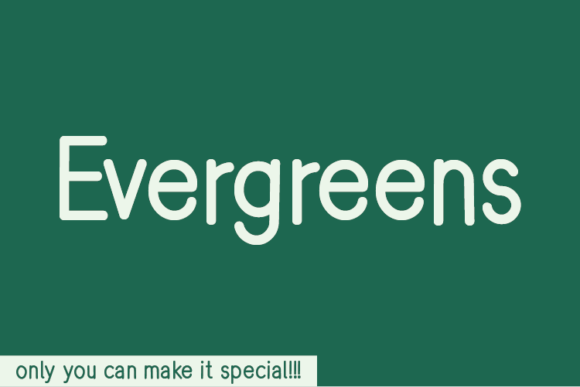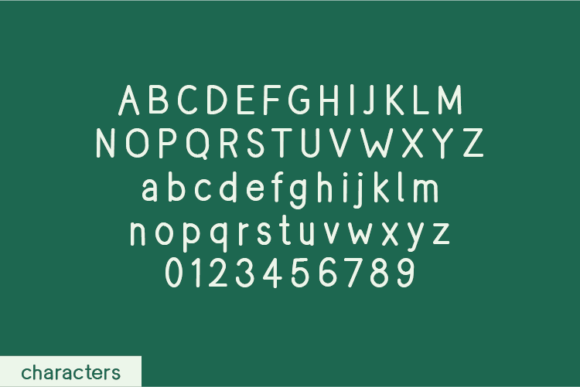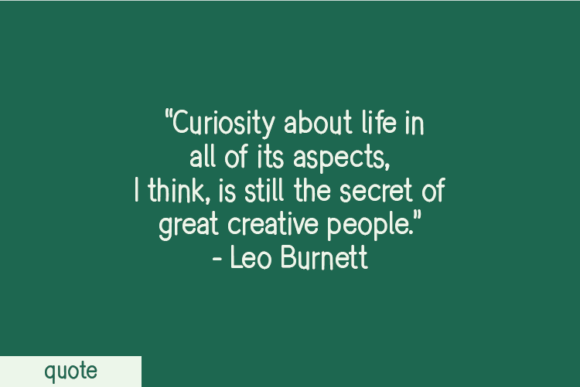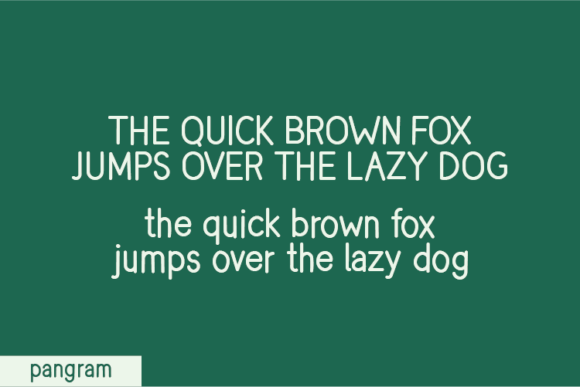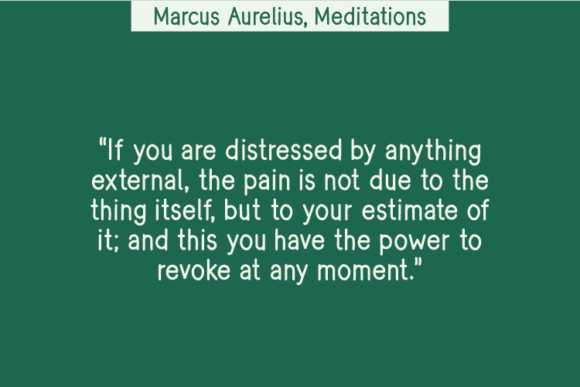
The Charm of Handwritten Typography
Have you ever stumbled upon a handwritten note or a quote that captured your heart? Maybe it was a love letter, a childhood drawing, or a quote that resonated with you. Whatever it was, I’m sure you remember the feeling of connection it evoked. That’s exactly what designers strive for – creating a connection with their audience through typography.
Enter the Evergreens Font, a natural handwritten font that exudes warmth and personality. Its unique design, where each character’s indentation remains intact, sets it apart from other fonts. Perfect for quotes, notes, tees, and product designs, the Evergreens Font is a valuable addition to any designer’s toolkit. Its versatility and charm make it a go-to choice for those who want to add a touch of human emotion to their designs.
Evergreens Font Key Features
- Font Family: Evergreens Font is a sans-serif font family with 12 styles, including Regular, Bold, Italic, and Bold Italic.
- Unique Characteristics: Evergreens Font features a clean, modern design with a subtle rounded edge, making it ideal for digital products, branding, and advertising.
Evergreens Font Review
I recently had the chance to work with the Evergreens Font, and here’s my honest take on it.
The Evergreens Font has a unique, hand-drawn feel that’s perfect for adding a touch of personality to your designs.
It’s highly legible, even at smaller font sizes, which makes it a great choice for body text.
The font family includes a range of weights and styles, from light to bold, giving you plenty of flexibility to customize your typography.
The font also includes a range of international characters, making it a great choice for global projects.
One of the main limitations of the Evergreens Font is its lack of support for certain languages, such as Arabic and Chinese.
The font also doesn’t include any decorative elements, which might be a drawback for designers who want to add some extra flair to their designs.
Overall, I think the Evergreens Font is a great choice for designers who want to add a unique, hand-drawn feel to their designs.
While it has some limitations, the font’s unique character and high legibility make it a great addition to any design toolkit.
Tips for Getting the Most Out of Evergreens Font
Use the Evergreens font to create a cohesive brand identity by applying it consistently across all your designs.
Experiment with different font sizes and colors to add visual interest to your designs.
Combine the Evergreens font with other fonts to create a unique and stylish look.
The Evergreens font is suitable for a wide range of designs, including:
Branding and logos
Brochures and flyers
Social media graphics
Web design and development
Print materials and more
Alternatives to Evergreens Font for Designers
Lato is a modern sans-serif font that offers a clean and elegant design. It is ideal for use in digital and print materials such as logos, brochures, and websites. Lato is similar to Evergreens in its modern feel, but it has a more geometric and sleek appearance.
Open Sans is a popular sans-serif font that is highly legible and versatile. It is suitable for a wide range of applications, including digital signage, advertisements, and websites. Open Sans has a more neutral and straightforward design compared to Evergreens, making it a great choice for projects that require a clean and simple look.